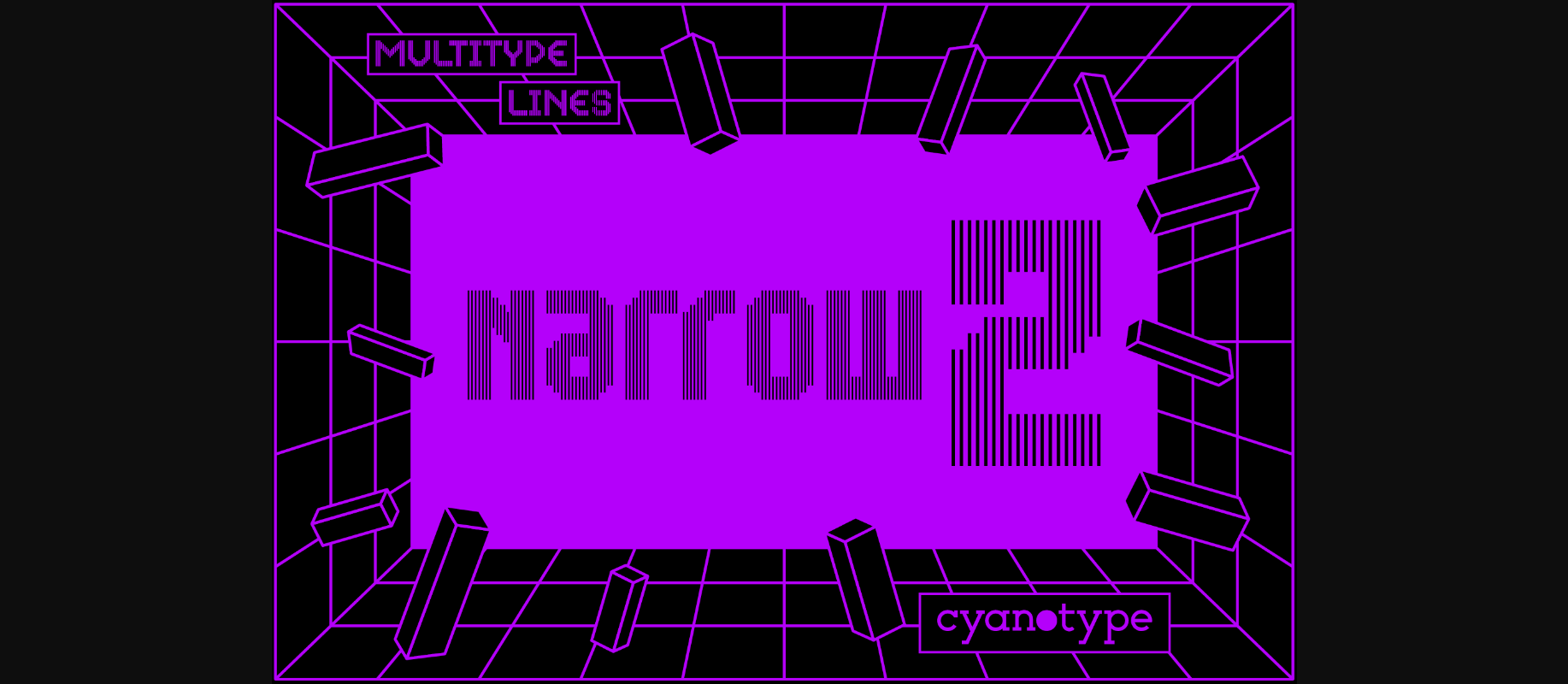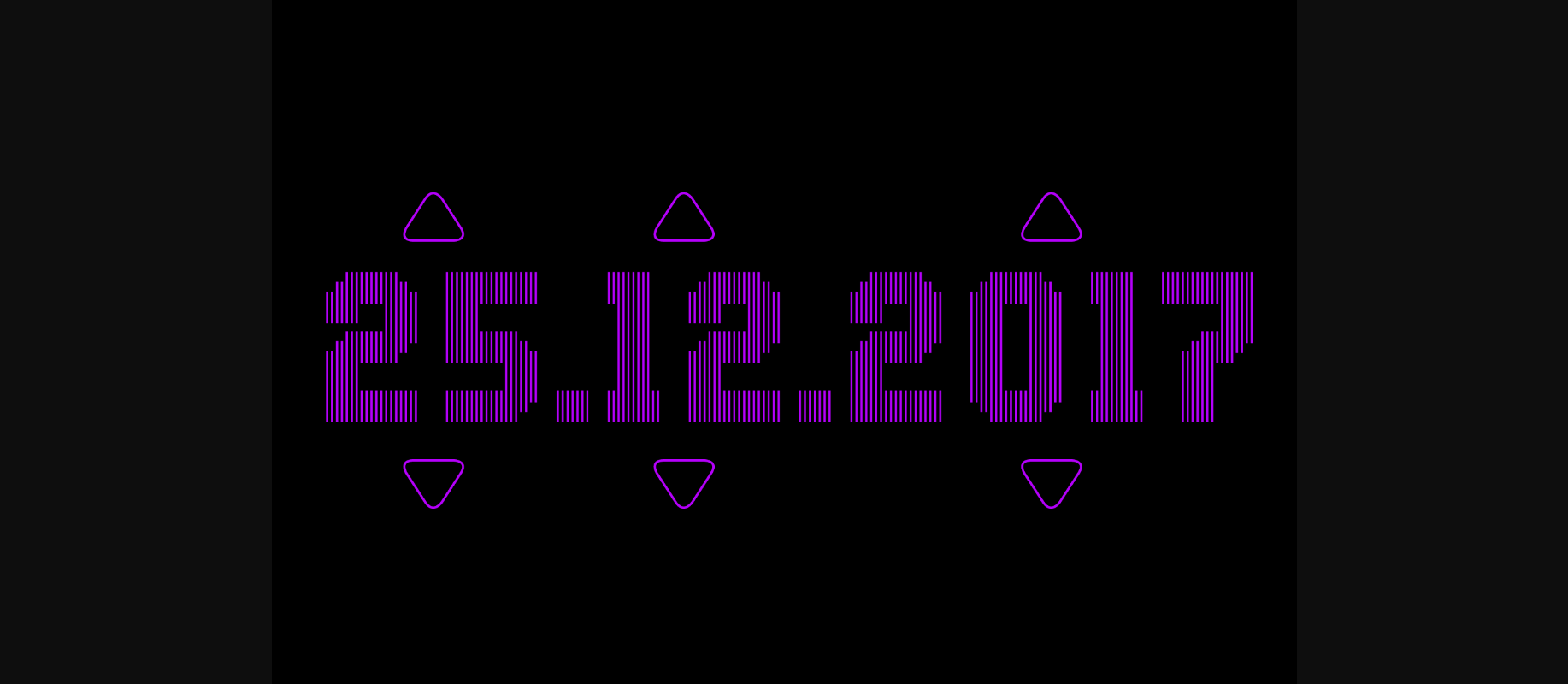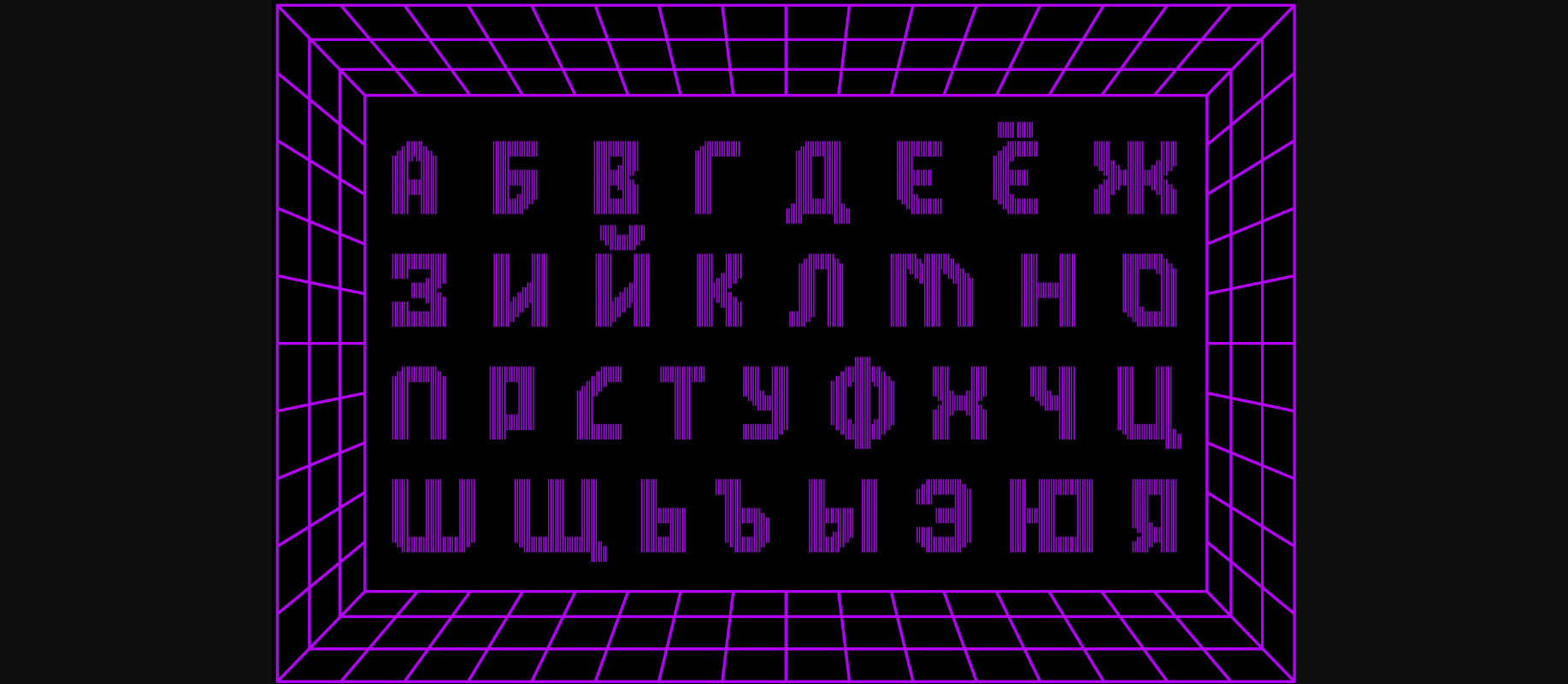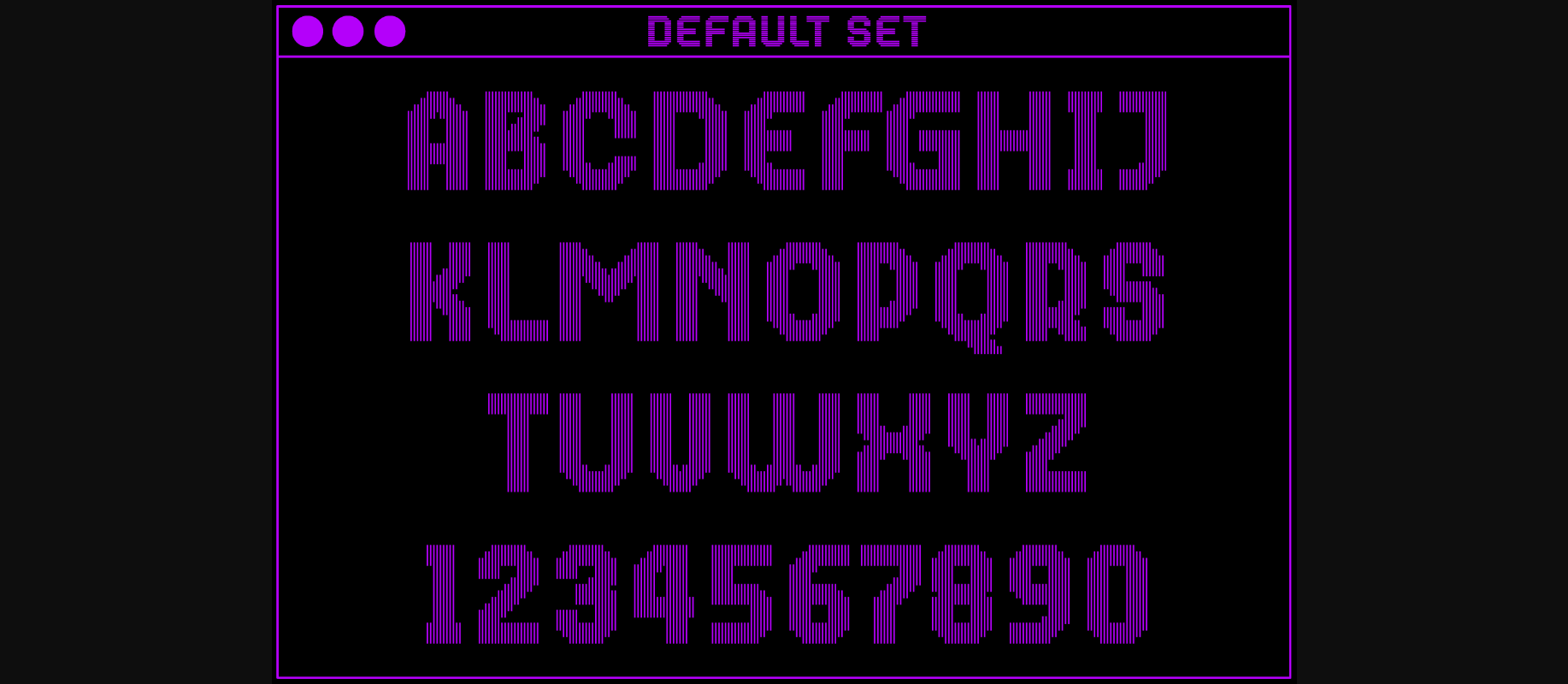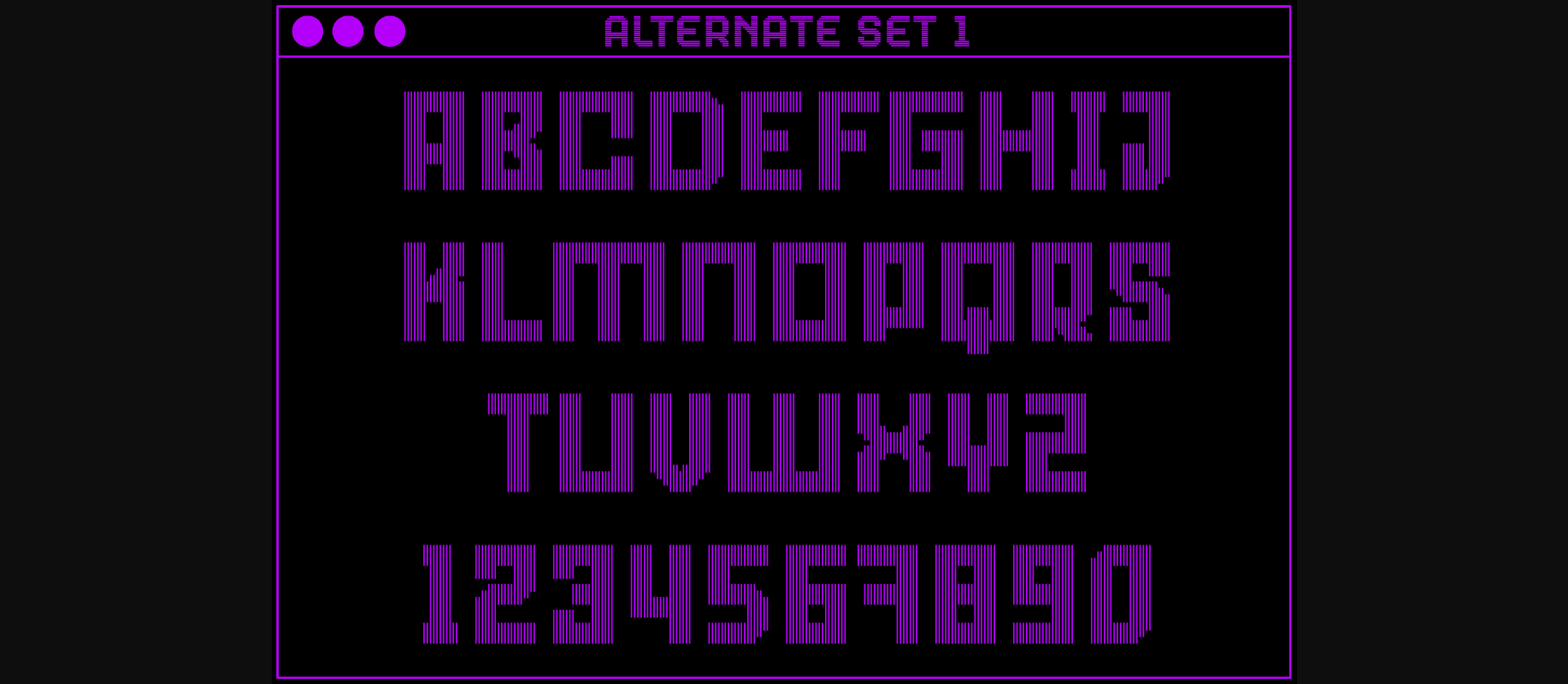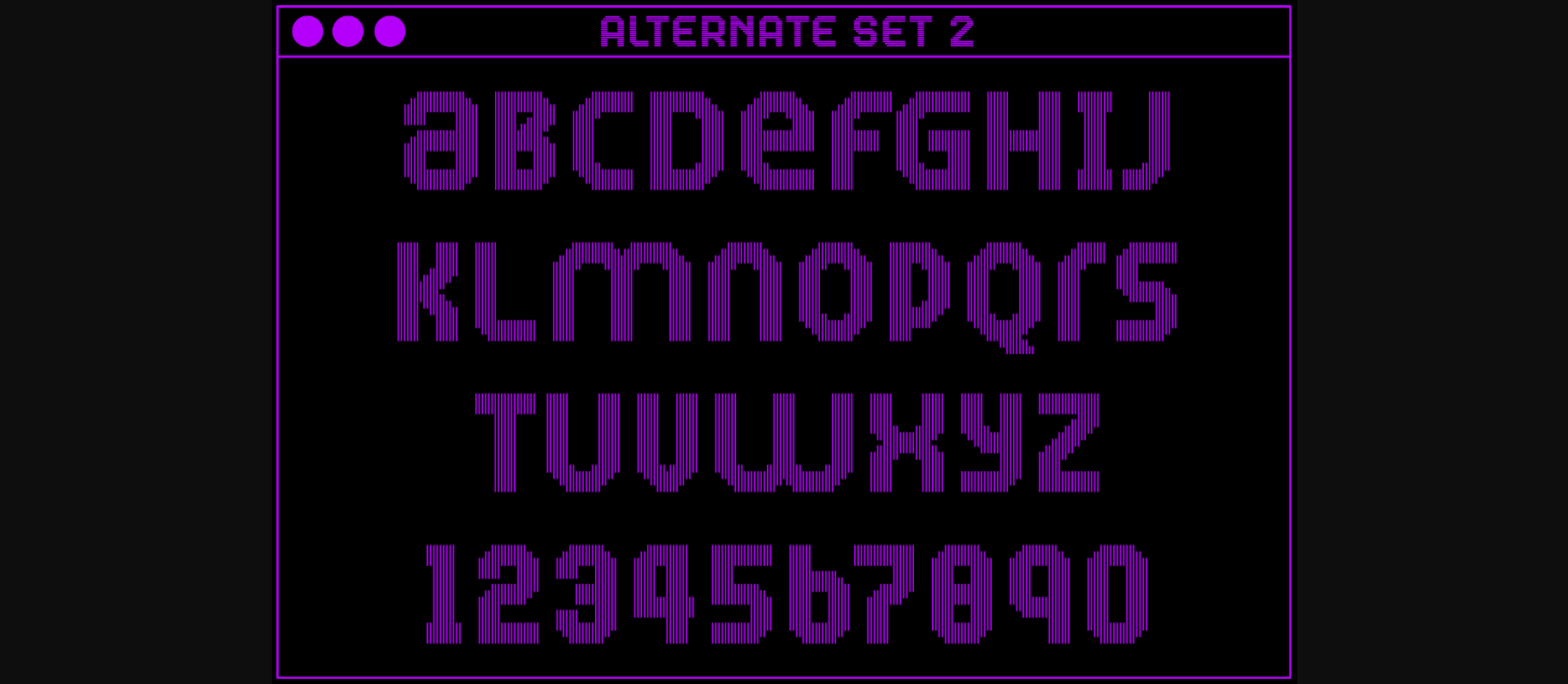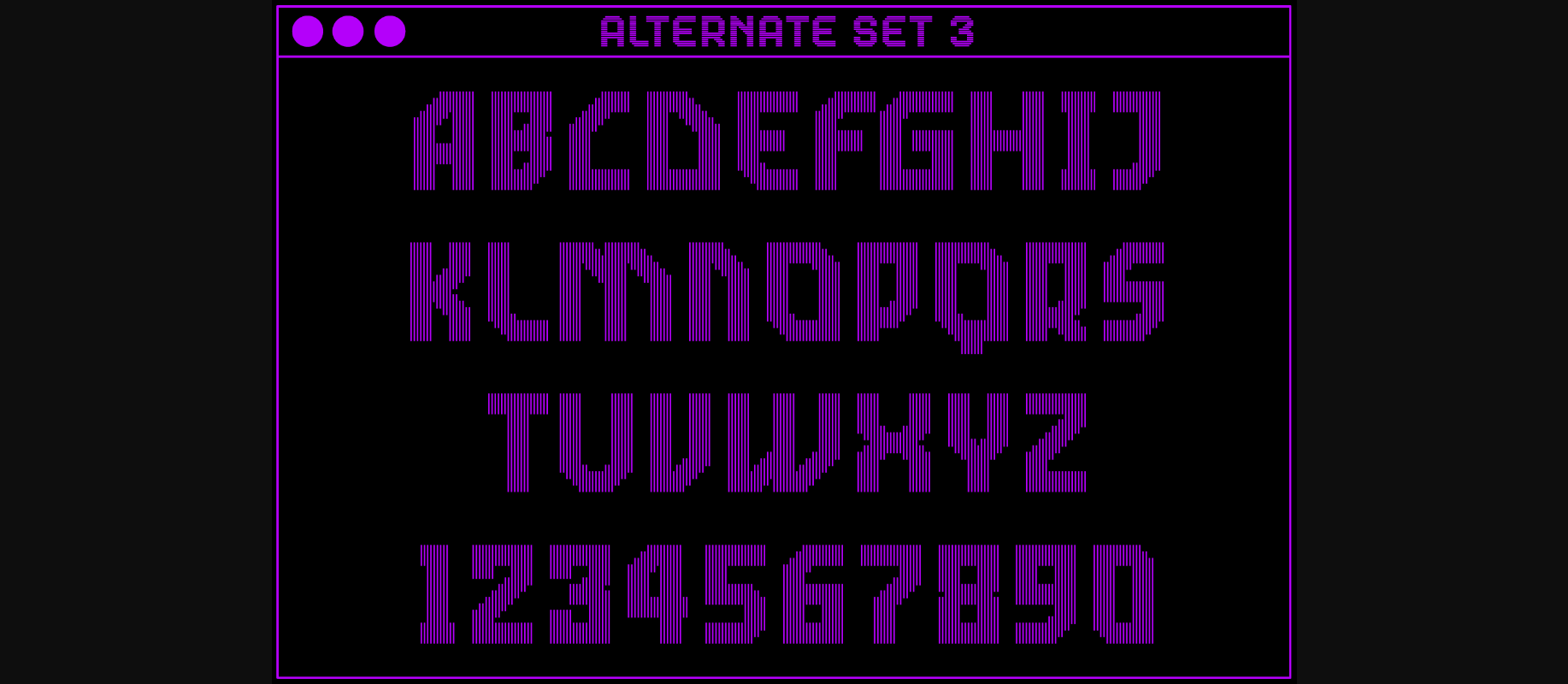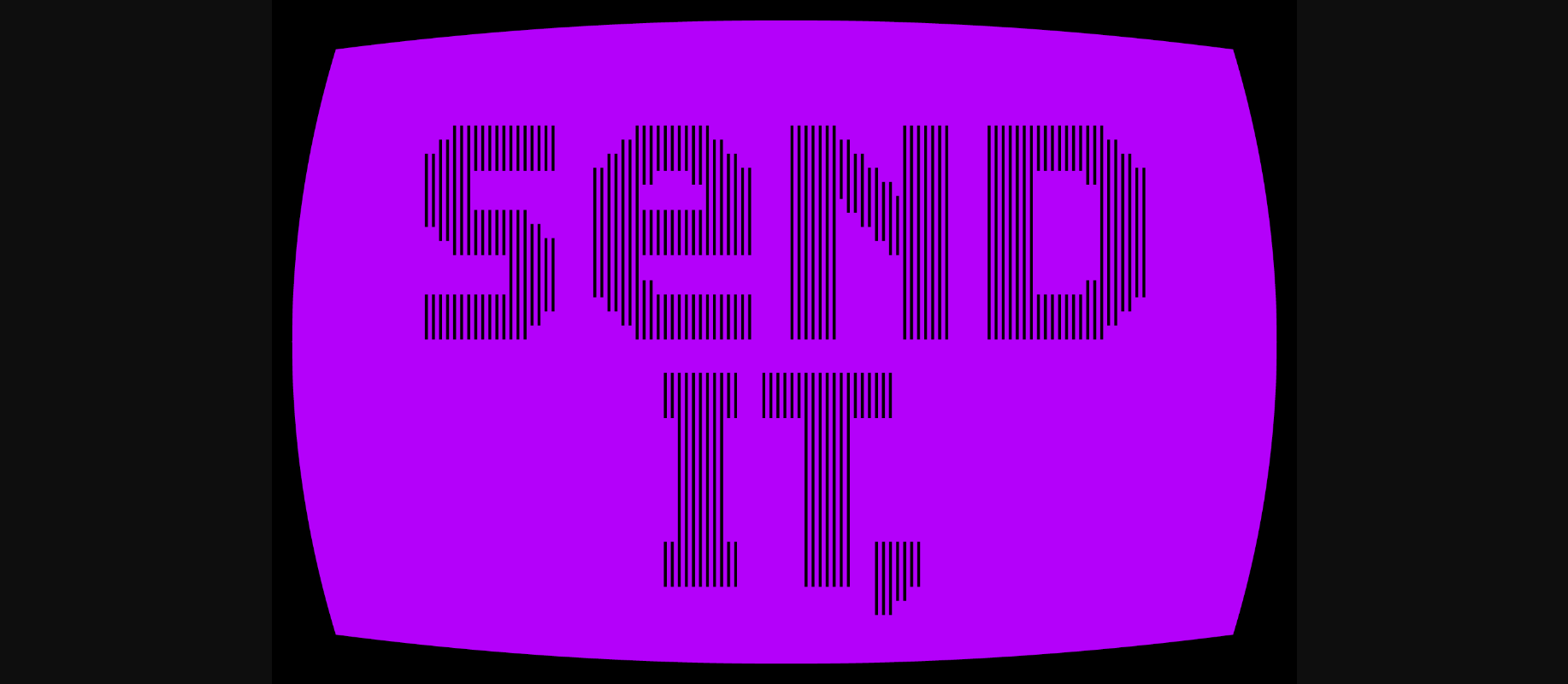
MultiType Lines Narrow 2 Font
About MultiType Lines Narrow 2 Font
MultiType Lines Narrow 2 is a cool, uniquely shaped, pixelated decorative font. Add a distorted and trendy touch to your designs with this very unusual pixel font!